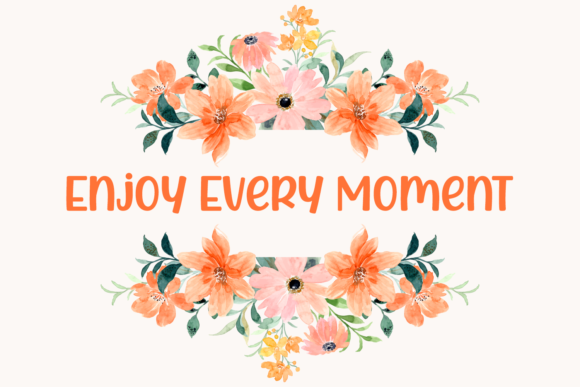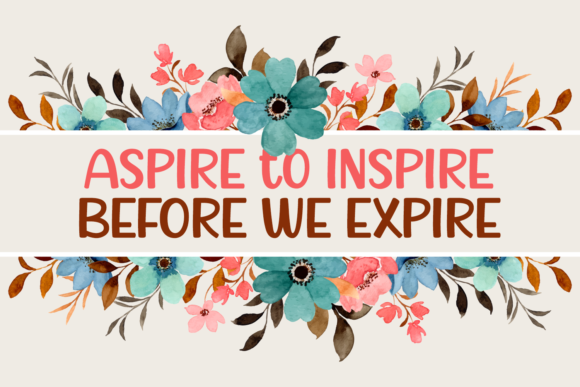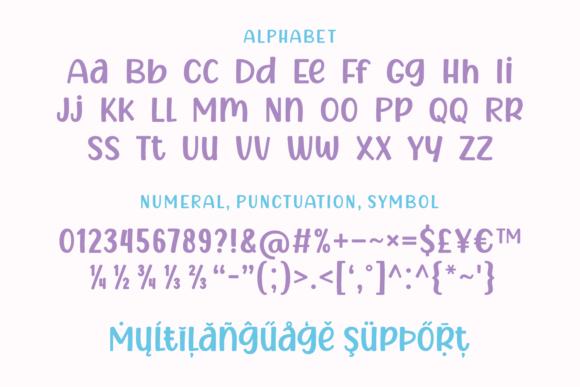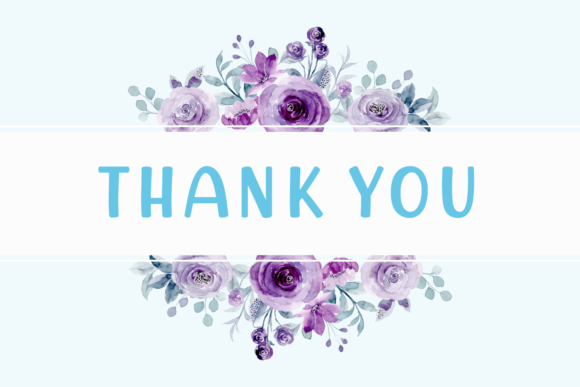
Introduction to Energize Yourself Font
Energize Yourself is a simple display font to elevate your creative projects and designs.
Add it to your library and use it for posters, headlines, logos, websites, shirts, greeting cards, and so much more .
Key Features of Energize Yourself Font
Why Choose Energize Yourself Font?
Energize Yourself Font offers exceptional quality and versatility, making it a valuable addition to your design toolkit. Whether you’re creating for personal projects or commercial use, Energize Yourself Font delivers professional results.